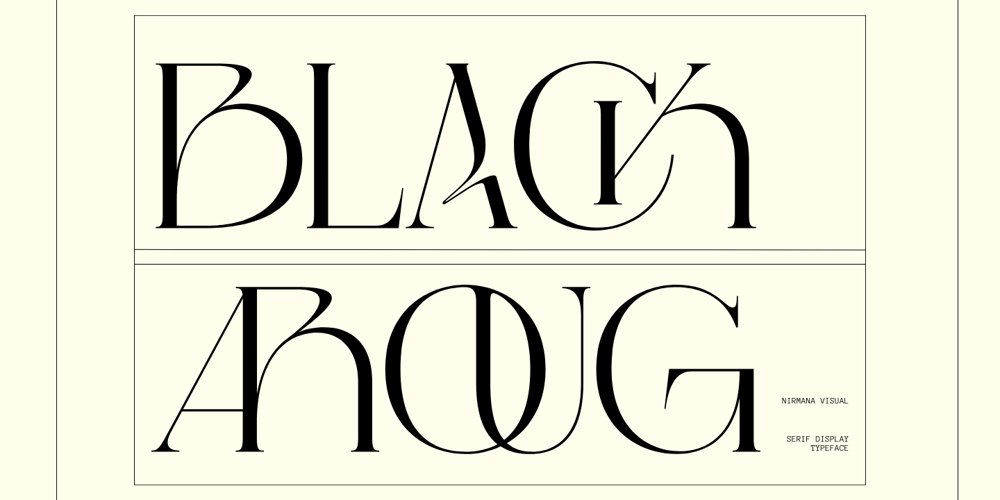
Black Aroug Font Family was designed by Sigit Dwipa and published by Nirmana Visual. Black Aroug contains 1 styles and family package options. Introducing Black Aroug, crafted to capture the essence of design from the 1890s. Inspired by the ornate aesthetics and artistic intricacies of the period, this typeface combines the elegance of Victorian-era typography with a touch of modern refinement, creating a unique blend of old-world charm and contemporary